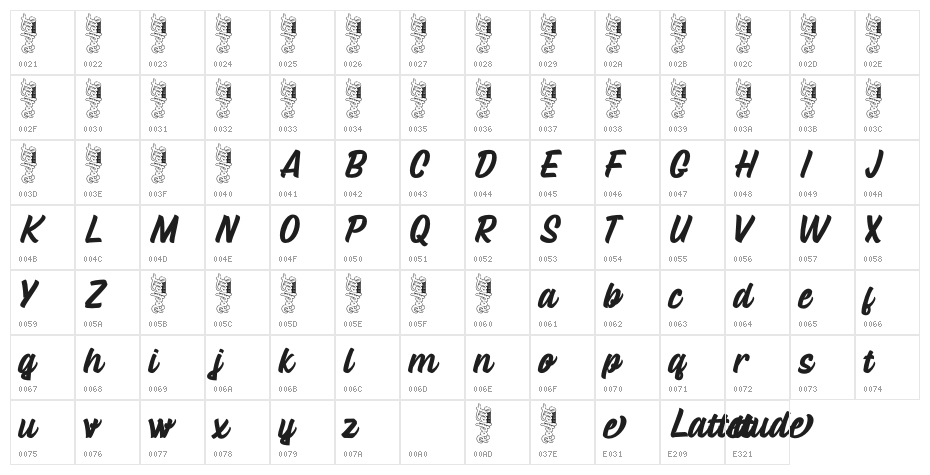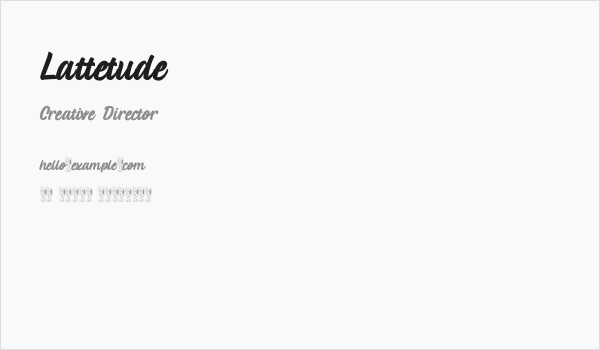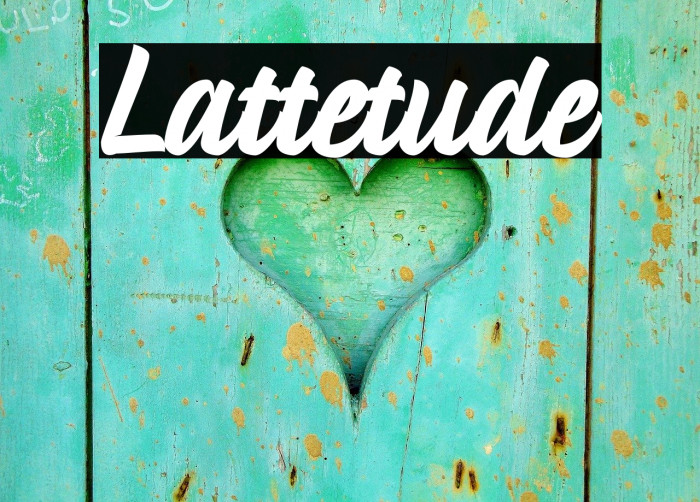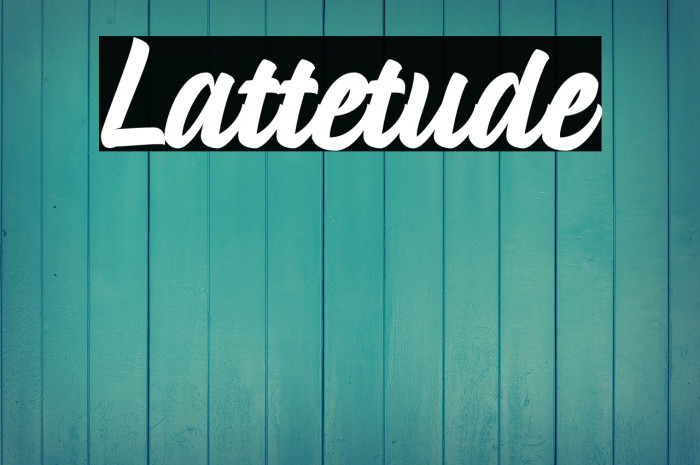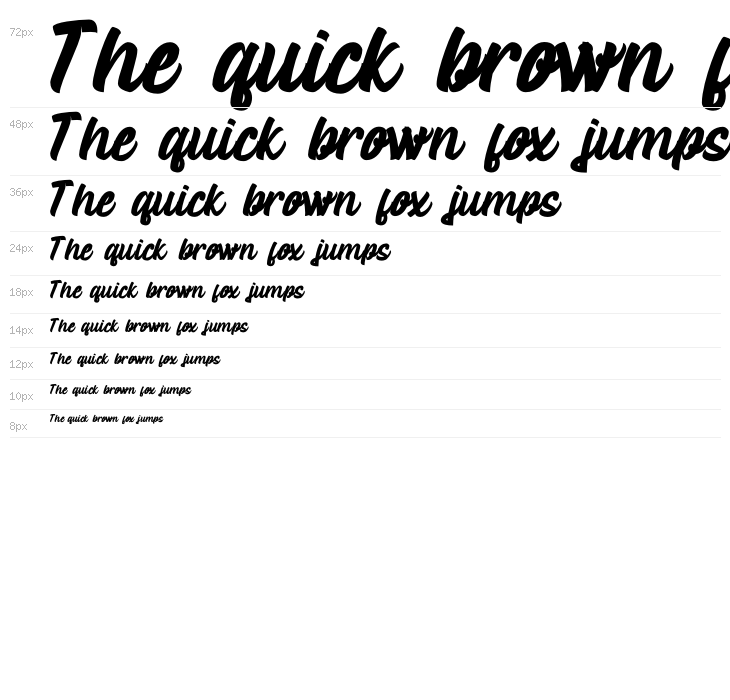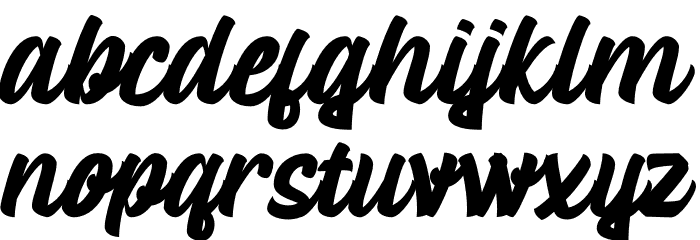
Lattetude Font
Lattetude Description
This font exhibits a bold and dynamic script style, characterized by its flowing, cursive letterforms that convey a sense of movement and elegance. The uppercase letters are slightly slanted, adding a touch of sophistication, while the lowercase letters maintain a consistent rhythm, enhancing readability. The strokes are thick and uniform, providing a strong visual impact. The font's playful yet refined appearance makes it suitable for a variety of creative applications. Its unique style is further emphasized by the consistent spacing and smooth curves, which contribute to its overall harmonious look.
| Proposed Projects | Ideal for branding, invitations, greeting cards, and creative design projects. |